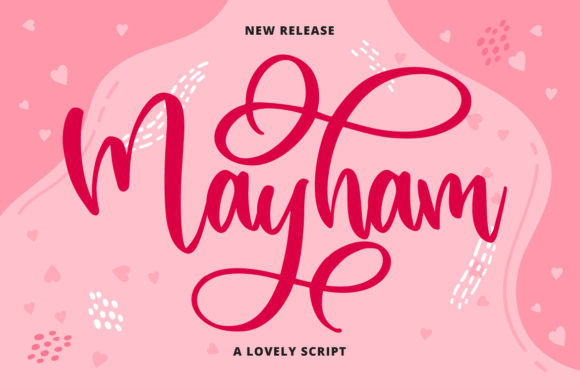
Mayham Font
Indulge in the allure of Mayham Font, a captivating creation from Fallengraphic that will set your designs ablaze with its script-inspired brilliance. This masterpiece is the epitome of modern calligraphy, effortlessly blending the elegance of tradition with the vibrancy of contemporary art.
Mayham Font is more than just a font; it's a passport to a world of boundless creativity. Its PUA-encoding grants you effortless access to an enchanting realm of glyphs and swashes, empowering you to unleash your imagination upon every project.
With Mayham Font, the possibilities are endless. Envision your designs transformed into exquisite invitations that whisper tales of love and laughter. Picture your social media posts adorned with captivating headlines that beckon your audience with an irresistible charm. Let your website bloom with eye-catching banners that radiate an aura of sophistication and grace.
But the wonders of Mayham Font extend far beyond the digital realm. Unleash its transformative power upon the tangible world, where it will lend an air of exquisite charm to your paper crafts, card making, and scrapbooking endeavors. Its versatility knows no bounds, making it the perfect companion for both personal and professional creations.